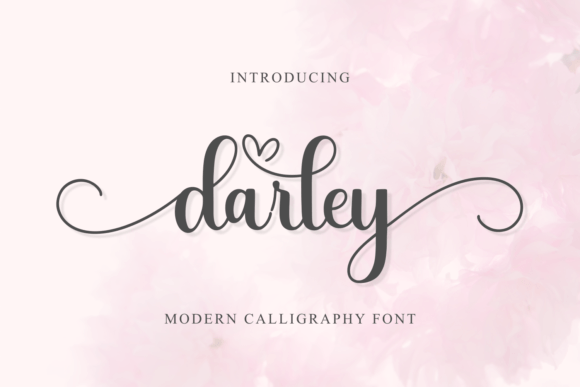
Introducing Darley Font, the epitome of elegance and sophistication in the world of calligraphy fonts. This meticulously crafted script font exudes a timeless charm that will elevate your designs to new heights, leaving an indelible mark on the hearts of your audience.
Crafted with the utmost care by the renowned font designer, kammaqsum, Darley Font boasts an array of distinctive features that set it apart from the ordinary. Its graceful curves and delicate swashes evoke a sense of romance and nostalgia, making it the perfect choice for creating heartfelt and meaningful designs.
Immerse yourself in the versatility of Darley Font, a font that effortlessly adapts to a multitude of design projects. Whether you're working on logos, labels, branding, invitations, websites, or inspirational quotes, Darley Font has the power to transform your creations into true masterpieces.
Darley Font is a dream come true for designers seeking to add a touch of elegance and sophistication to their work. Its PUA encoding ensures effortless access to all glyphs and swashes, allowing you to unleash your creativity and bring your designs to life with unparalleled ease.